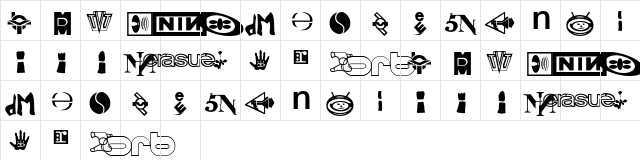
TechnoBats Regular
Design Context for TechnoBats Typeface
TechnoBats channels digital-age aesthetics through its sharp, structured letterforms — ideal for brands that want to signal innovation.
Pro Tip: Use TechnoBats in combination with a neutral sans for body text. Let it define the brand voice in headlines while keeping reading comfortable elsewhere.